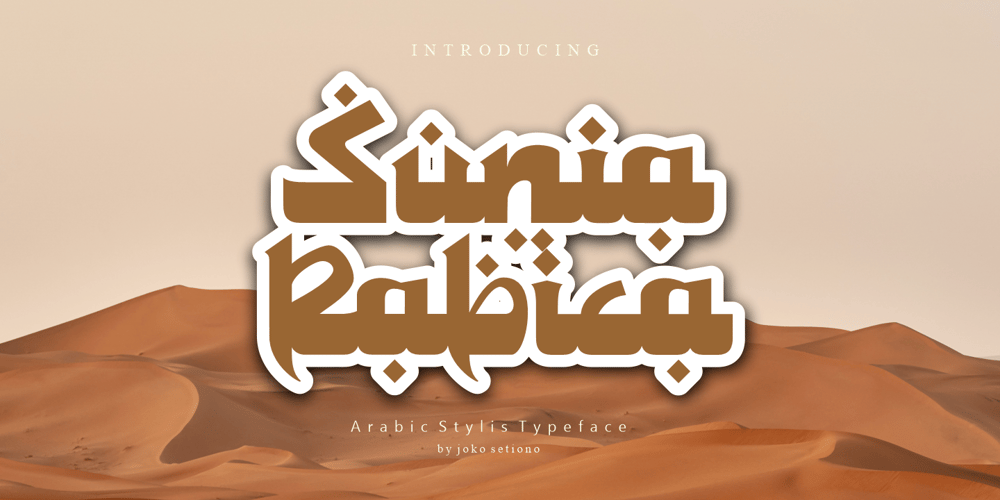
Sunia Rabica Font Family was designed by Joko Setiono and published by Arttype7. Sunia Rabica contains 1 styles and family package options. Sunia Rabica is a cool looking and incredibly unique display font, inspired by the arabic art. It is defined by smooth curves and is perfect for fashion branding or editorial designs. Add it confidently to your projects, and you will love the results.